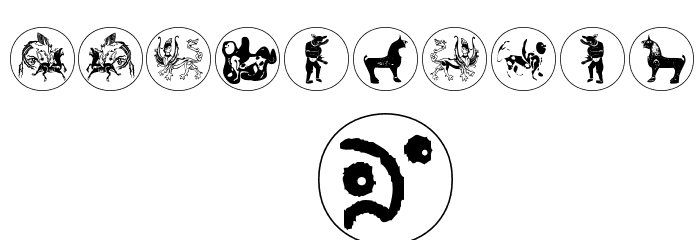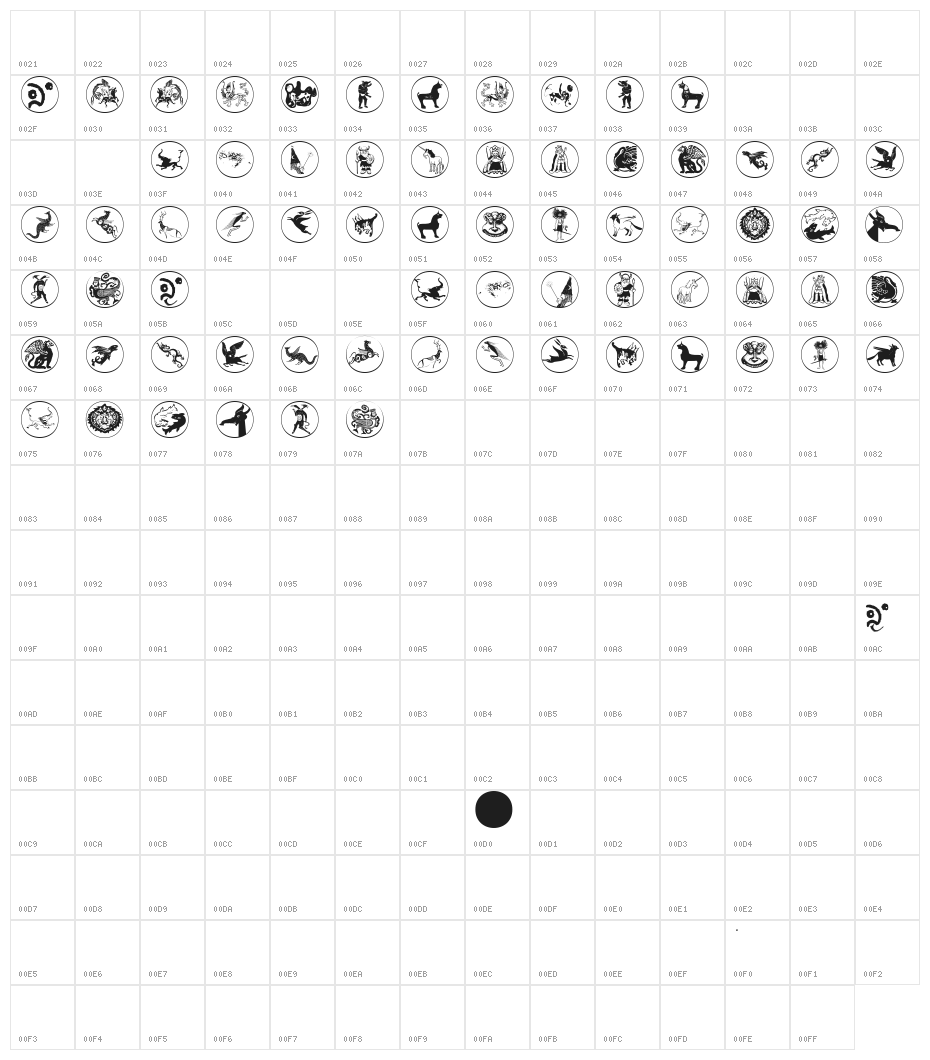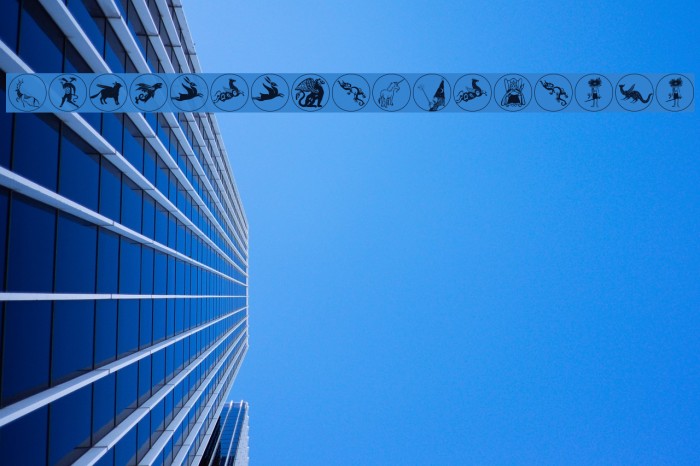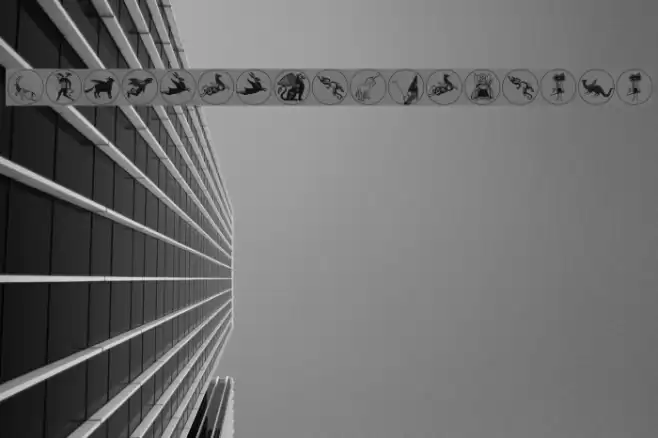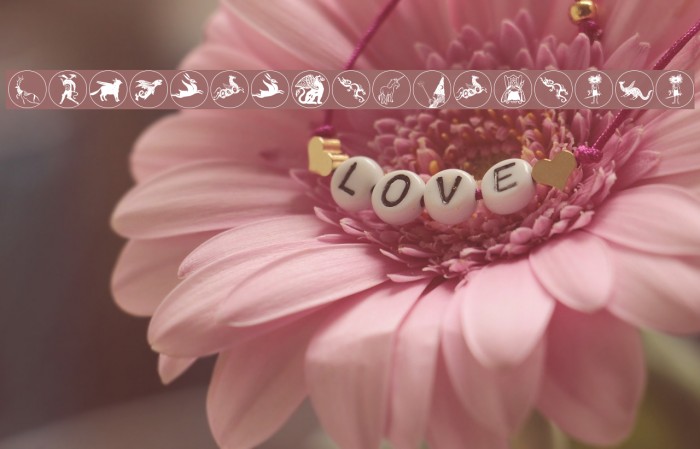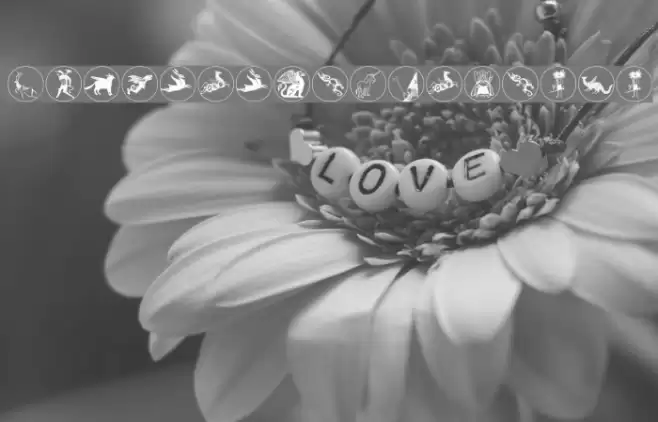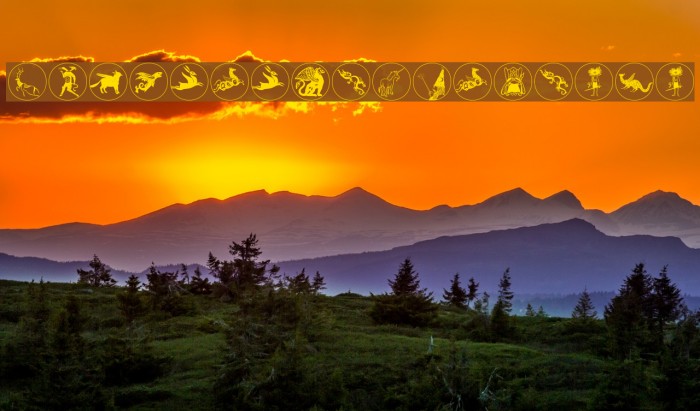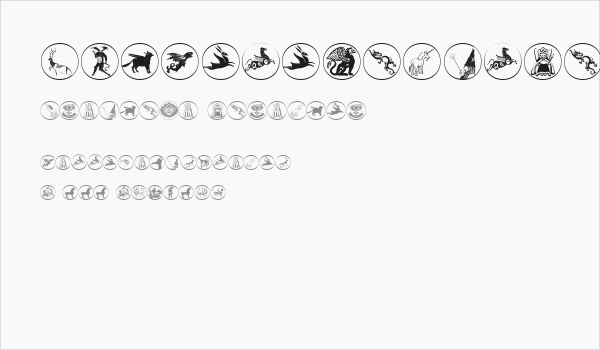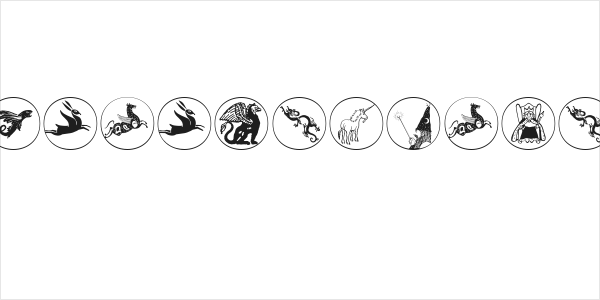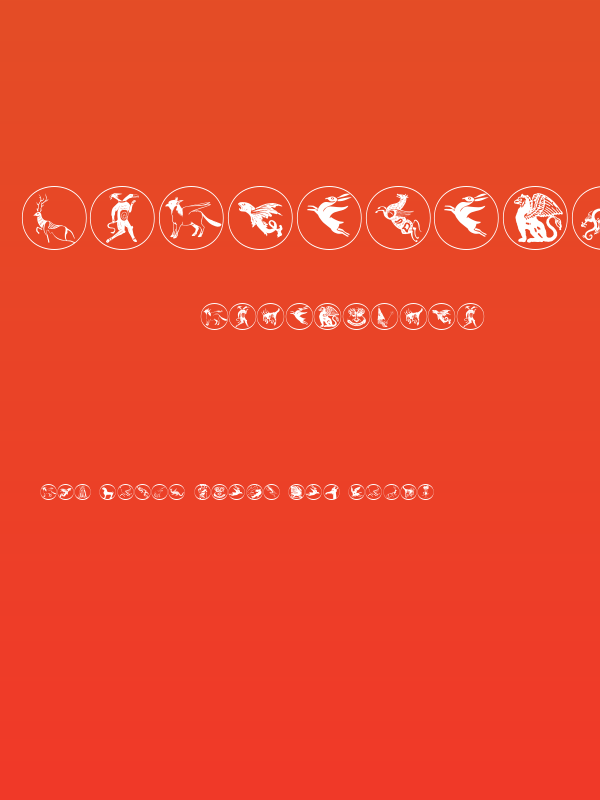
MythologicalDisks Font
MythologicalDisks Description
A decorative display typeface featuring circular glyphs, each containing intricate mythological or animal-themed illustrations rather than traditional alphanumeric characters. The symbols are highly detailed, with strong contrast between black and white, and each character is enclosed in a thin circular border.
| Overall Style | Decorative, Mythological, Fantasy |
| Use Case | Logos, Titles, Posters, Themed Graphics |
| Proposed Projects | Fantasy book covers, game titles, mystical branding, themed posters, tarot or oracle cards. |